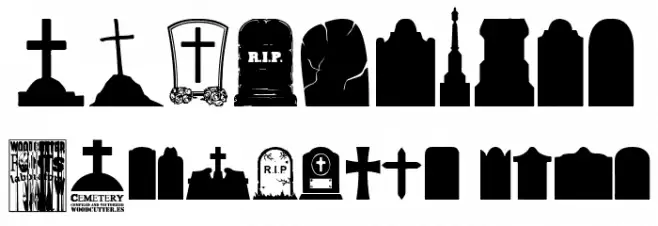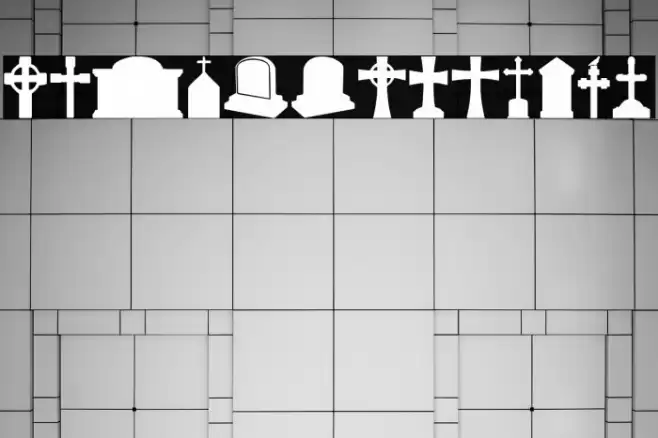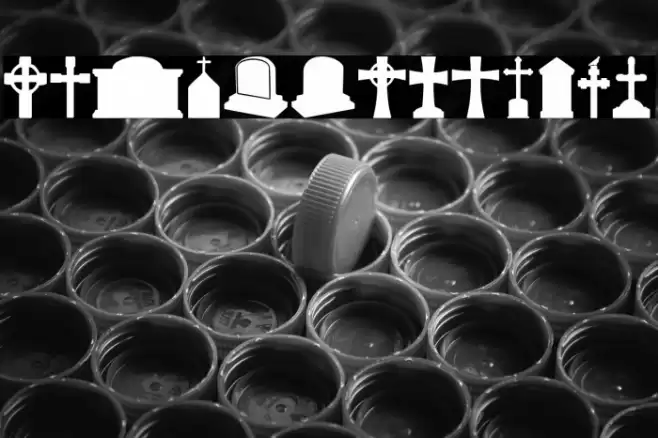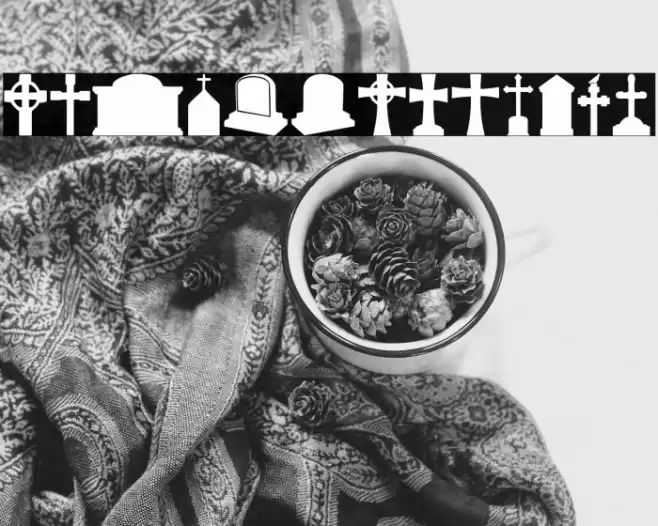
Cemetery Icons Font
Cemetery Icons Description
A collection of cemetery-themed icon silhouettes, including gravestones, crosses, tombs, and related imagery, rendered in a bold, solid black style with minimal detail and high contrast.
Silhouette icons of gravestones and cemetery symbols from Uncategorized fonts.
- Font: Cemetery Icons
- Proposed Projects: Halloween invitations, horror-themed posters, spooky event flyers, game assets, educational materials about cemeteries.
- Overall Style: Decorative, Thematic, Spooky
- Use Case: Icons, Decorative graphics, Themed illustrations